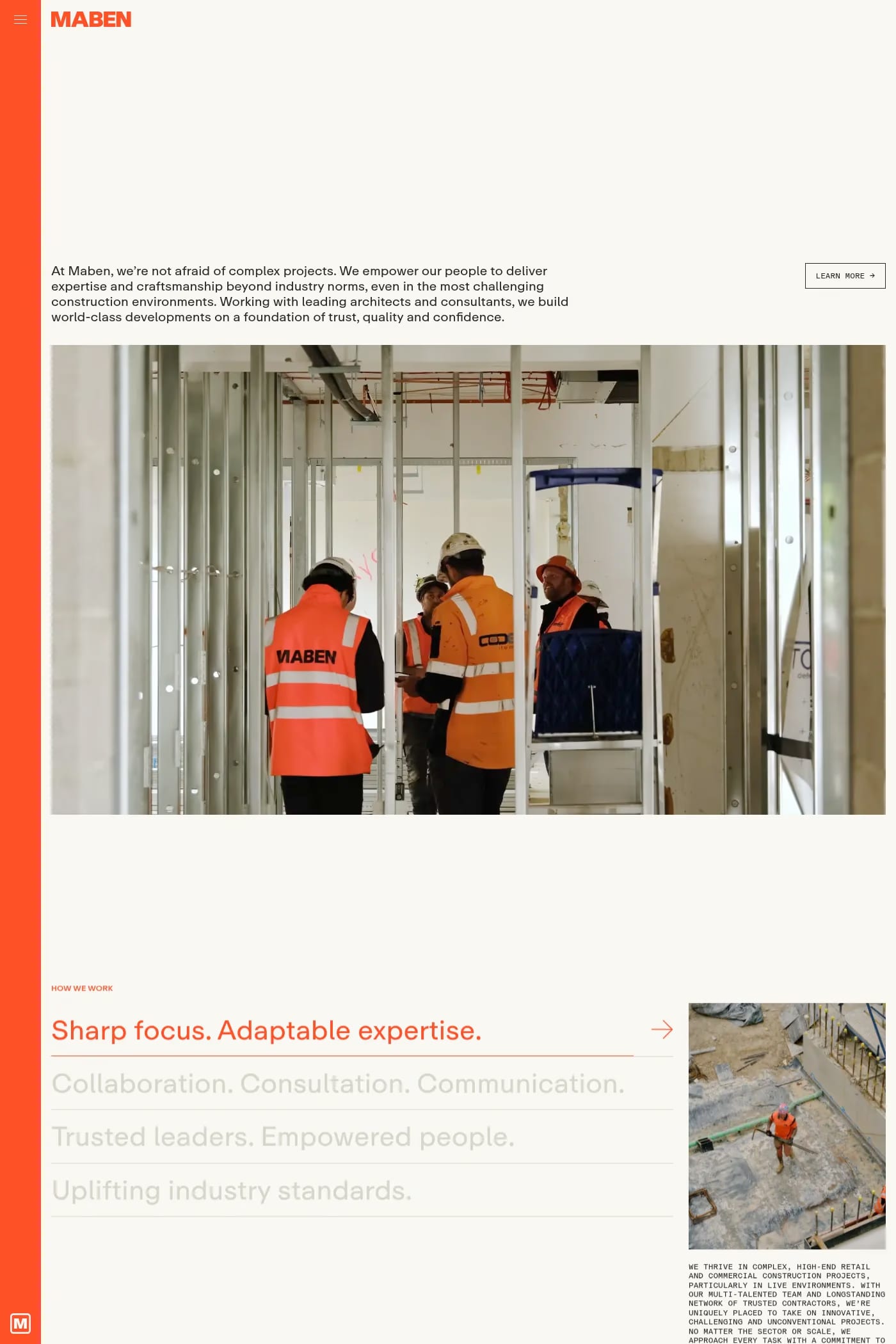
Repro Mono is a monospace typeface from Dinamo.
Repro is a friendly, flexible sans serif inspired by signage and digital operating systems; its a typeface that merges clean design with complex font engineering.